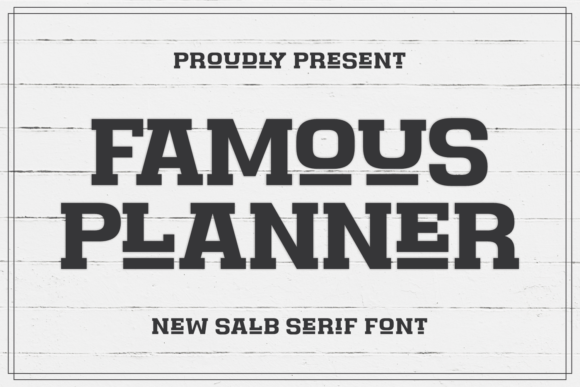
Famous Planner: A Font for the Modern Creator
Fonts play a subtle but powerful role in how we communicate. They shape our message before it’s even read, influencing perceptions of style, tone, and trustworthiness. That’s why choosing the right typeface is so important—for designers, writers, marketers, and anyone who wants to make their work stand out. Enter Famous Planner Slab Serif, a font that combines bold character with clean modernity, making it an excellent choice for a wide range of applications.
What Is Famous Planner Slab Serif?
Famous Planner Slab Serif is a contemporary slab serif font inspired by the timeless appeal of classic typography while embracing the clarity needed for today's digital landscape. It features strong, block-like serifs that add weight and presence without overwhelming the reader. The letterforms are balanced and legible, with just enough personality to capture attention. This makes it ideal for both print and screen use—whether you're designing a book cover or creating a social media graphic.
Why It Stands Out
Unlike many fonts that either lean too heavily into retro aesthetics or appear overly minimalist, Famous Planner finds its sweet spot in between. It has a modern rhythm that keeps things fresh, yet retains the grounded feel of traditional slabs. These accents aren’t just decorative—they help guide the eye and create visual hierarchy naturally. For creators who want something distinctive but not distracting, this font hits the mark perfectly.
Use Cases for Famous Planner
Let’s break down where Famous Planner Slab Serif can be put to good use. Whether you're running a boutique, launching a blog, or working on a creative project, this font can elevate your visuals in meaningful ways.
Apparel Design: Make a Bold Statement
If you're in the apparel industry, especially if you’re selling t-shirts, hoodies, or branded merchandise, having the right font can turn a simple design into a standout piece. Famous Planner works well when used as a primary text element because its strong serifs add a touch of sophistication and edge. Imagine a vintage-style t-shirt with a modern twist—this font could bridge the gap seamlessly.
- Use it for slogan placement on clothing
- Pair it with softer sans-serif fonts for contrast
- Opt for embossed or faded effects to highlight its structure
The result? Apparel that feels curated and authentic, perfect for niche markets like lifestyle brands, indie fashion lines, or personal collections.
Book Covers: Create Iconic Titles
For authors and publishers, the title of a book is often the first thing readers see. Choosing a font that reflects the tone and genre of the book is crucial. Famous Planner Slab Serif brings a sense of authority and artistry to titles, especially in genres like fiction, memoirs, or literary nonfiction. Its structured yet approachable look helps build trust and curiosity at a glance.
Real-world example: Picture a mystery novel titled “The Last Light.” Using Famous Planner would give the title a grounded yet mysterious vibe, enhancing the overall design without overpowering it. The font’s readability ensures that even in smaller sizes, the title remains clear and impactful.
Magazine Headlines: Grab Attention with Style
In the fast-paced world of publishing, headlines need to pop. Famous Planner delivers exactly that with its strong character set and crisp edges. It’s particularly effective for print magazines, editorial designs, or even online content that mimics print aesthetics.
- It adds a professional polish to feature articles
- Its structure supports complex layouts without losing legibility
- Works well in both high-contrast black and white or vibrant color schemes
Whether you're crafting a headline about technology, culture, or wellness, this font gives your words the gravitas they deserve.
Greetings Cards: Personalize with Purpose
Handmade or mass-produced, greetings cards rely on emotional resonance. Famous Planner offers a unique blend of warmth and strength, making it great for themed cards like birthdays, anniversaries, or holiday messages. The font’s balance allows for creativity in spacing and alignment, giving card designers room to experiment while maintaining readability.
Try using Famous Planner for the main greeting line and pair it with a more delicate script for the message inside. The contrast creates a memorable visual experience that stands apart from generic card designs.
Entrepreneurship and Branding: Build Trust Visually
Small business owners and startups often struggle to establish a visual identity that feels both credible and creative. Famous Planner can serve as a foundational element in branding materials like logos, brochures, or packaging. Its slab serif style conveys reliability, while the modern tweaks suggest innovation and forward-thinking.
Consider a coffee shop logo that uses Famous Planner for the name and a rounded sans-serif for taglines. The pairing suggests tradition meets modernity—a perfect fit for a brand aiming to honor artisanal roots while appealing to a younger demographic.
If you're looking for a font that bridges the past and present, that feels crafted but not cluttered, and that adapts easily to your vision—Famous Planner is worth exploring. Just remember to use it with purpose and pair it wisely. Typography is more than just letters; it’s a silent partner in storytelling, and Famous Planner knows how to speak volumes.